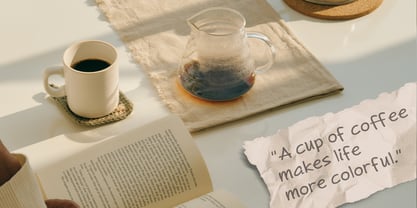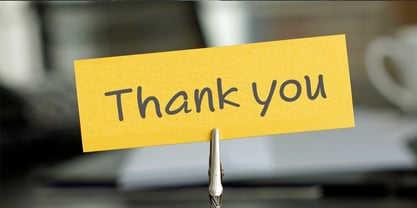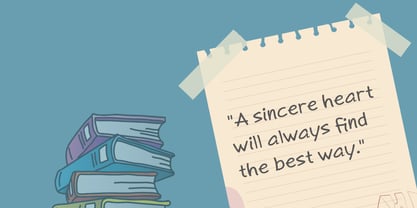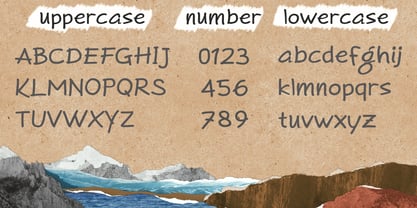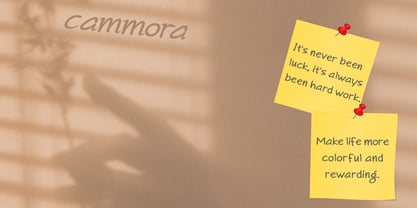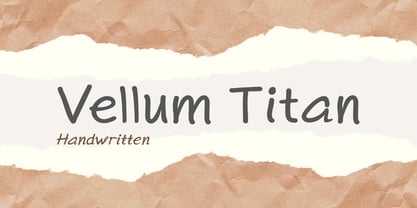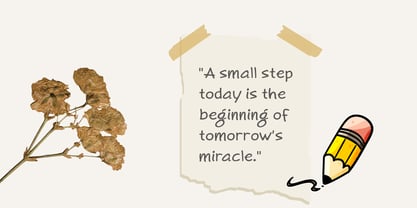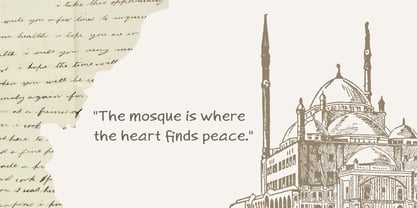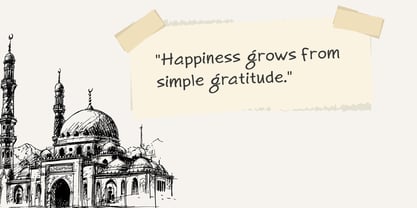
Vellum titan
by Kaidosan
The Vellum titan Font Family was designed by Muhammad Ansari and published by Kaidosan. Vellum titan contains 3 styles and family package options. More about this family
Vellum Titan is a modern handwritten font that blends authenticity with strength. Designed to capture the elegance of natural strokes while maintaining a bold character, this font is perfect for branding, editorial use, and creative projects.
It comes in three versatile styles:
• Regular – A natural handwritten look with smooth, balanced strokes. Ideal for logos, headlines, or body text that seeks a personal yet professional touch.
• Distort – A wavy, grunge-inspired variation with an expressive edge. Perfect for experimental, artistic, and high-impact designs.
• Italic – A dynamic slanted style that adds movement and elegance. Great for quotes, accents, and designs that demand a graceful flow.
Together, these three styles provide the flexibility to adapt across a wide range of projects—premium branding, artistic posters, book covers, modern invitations, digital content, and packaging designs.
Every stroke of Vellum Titan was crafted to deliver emotion, strength, and a unique character that stands apart from conventional fonts. More than just a typeface, Vellum Titan is a living visual identity.
Designers: Muhammad Ansari
Foundry: Kaidosan